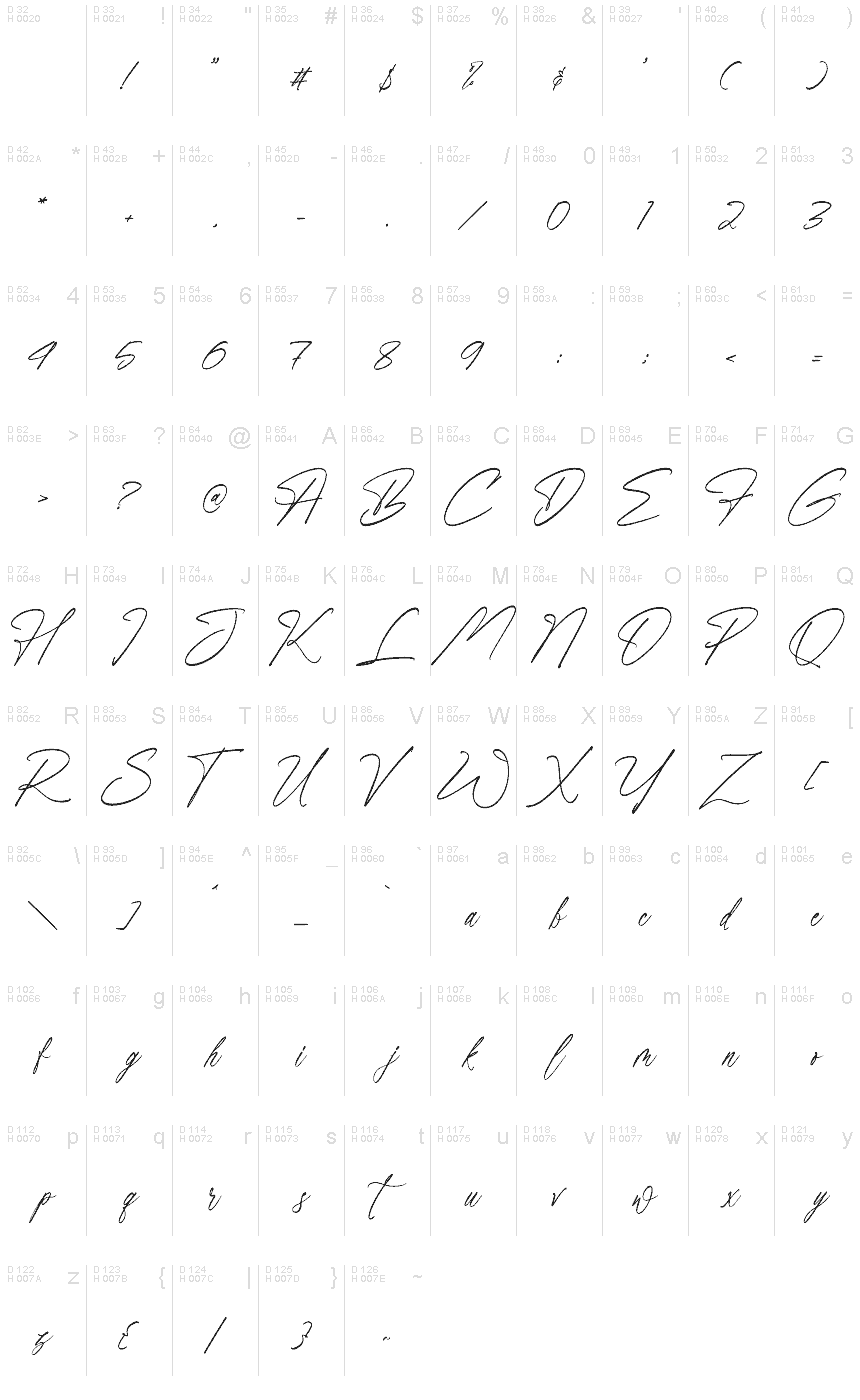
Flawvess
Flawvess font is a light, handwritten signature font crafted by Letterena Studios. This elegant typeface has flowing lines with expressive, contemporary characters that render beautifully aesthetic text. Without overdoing it nor infantilizing the text, Flawvess delivers professional sophistication and aesthetic prosperity.
There is so much Flawvess can be used for thanks to its versatile yet captivating appeal; websites, headings, titles, book covers, magazines, postcards or any other typography-related assignment. Use it for personal projects or professional work pieces on print or digital platforms.